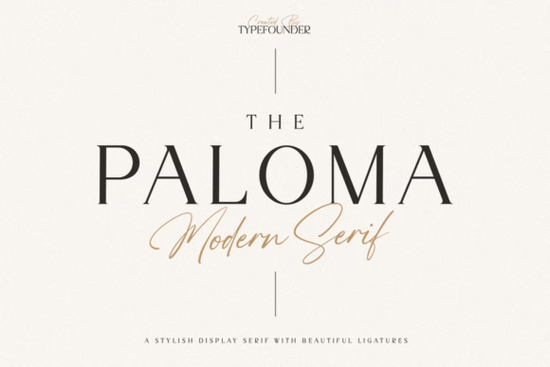
When it comes to choosing the right font for your design projects, The Paloma Font stands out with its perfect blend of classical structure and contemporary grace. This stylish display serif is designed for high-end aesthetics, making it an excellent choice for luxury branding, sophisticated editorial layouts, and minimalist logo design.
Why Choose The Paloma Font for Your Design Projects?
The Paloma is a font that exudes quiet confidence and timeless elegance. Its high-contrast strokes and sharp, refined serifs make it a versatile option for a wide range of creative needs. Whether you're crafting a chic magazine header or an upscale brand identity, this font can add a touch of sophistication to your work.
Perfect for Luxury Branding
One of the key strengths of The Paloma is its suitability for luxury branding. If you're working on a project that requires an air of elegance and refinement, this font can help you achieve that. The clean lines and high-contrast strokes give it a modern yet classic feel, making it ideal for high-end brands.
Sophisticated Editorial Layouts
For those involved in publishing or editorial design, The Paloma is a fantastic choice. It can be used for headers, subheaders, and even body text, depending on the overall aesthetic of your publication. The font's versatility allows it to fit seamlessly into various editorial styles, from fashion magazines to corporate reports.
Minimalist Logo Design
Minimalism is all about simplicity and clarity, and The Paloma fits this ethos perfectly. Its refined serifs and elegant form make it an excellent choice for creating minimalist logos. Whether you're designing a logo for a new business or rebranding an existing one, this font can help you achieve a clean, professional look.
How Does The Paloma Compare to Other Serif Fonts?
While The Paloma is a standout choice, it's always good to know how it compares to other popular serif fonts. Here are a few similar options:
- Vintage Market offers a more traditional, rustic feel, which can be great for vintage-themed designs.
- Lovine has a more ornate and decorative style, making it suitable for elegant invitations and formal documents.
- Emerale is another high-end serif font with a slightly more modern twist, ideal for contemporary branding.
- Roses Garden brings a floral and romantic touch, perfect for wedding invitations and feminine branding.
Using The Paloma in Different Design Projects
Here are some practical tips on how to use The Paloma in different types of design projects:
- Luxury Branding: Use The Paloma for the main brand name and tagline. Pair it with a simple, clean sans-serif for additional text to maintain a balanced and elegant look.
- Editorial Layouts: Experiment with The Paloma for section titles and subheadings. Combine it with a more readable serif or sans-serif for body text to ensure readability.
- Minimalist Logos: Keep it simple by using The Paloma for the primary text. Avoid adding too many elements to keep the focus on the font's elegance.
Practical Checklist for Using The Paloma Font
- Choose The Paloma for luxury branding, editorial layouts, and minimalist logos.
- Pair it with a simple, clean sans-serif for additional text to maintain balance.
- Experiment with different sizes and weights to see what works best for your project.
- Consider the context and audience to ensure the font aligns with your design goals.
By following these tips, you can effectively incorporate The Paloma into your design projects and create a lasting impression with its timeless elegance.